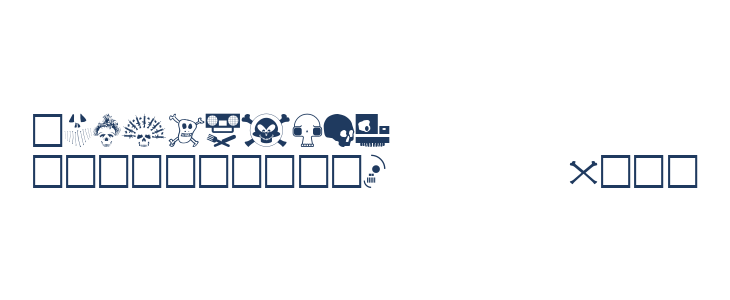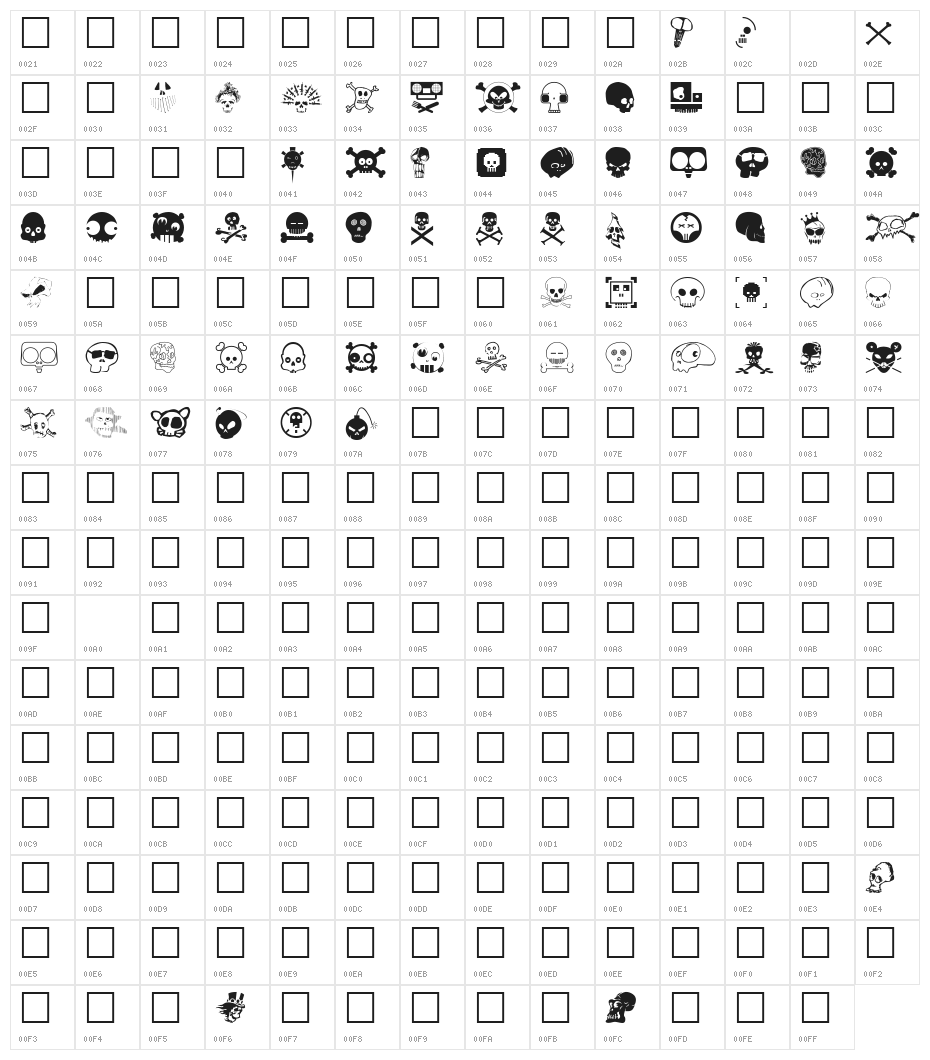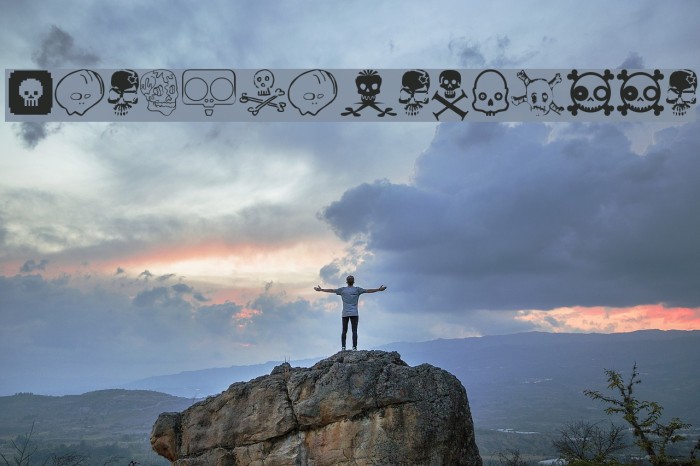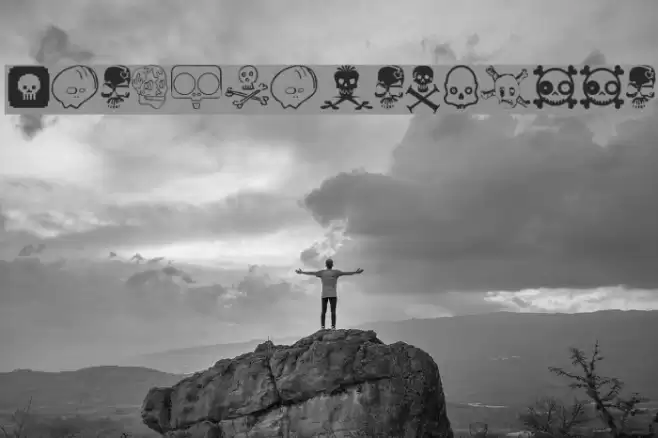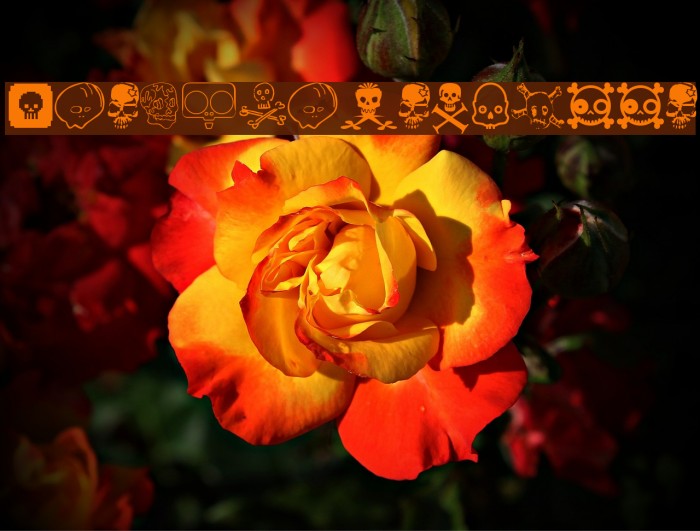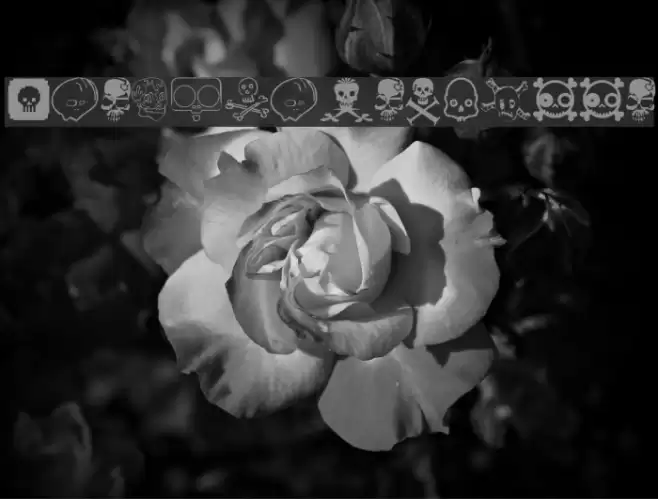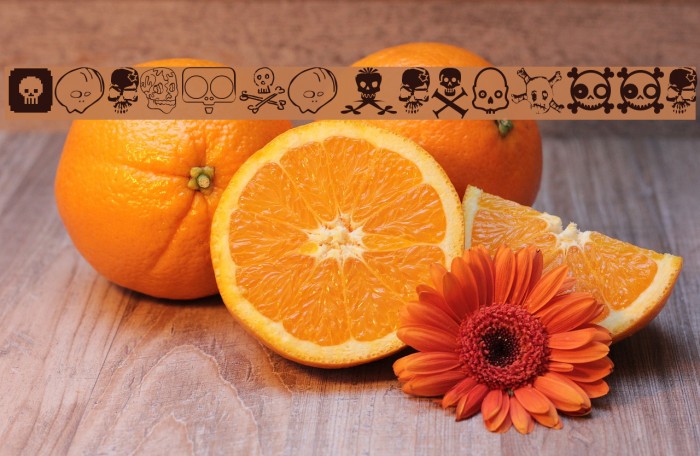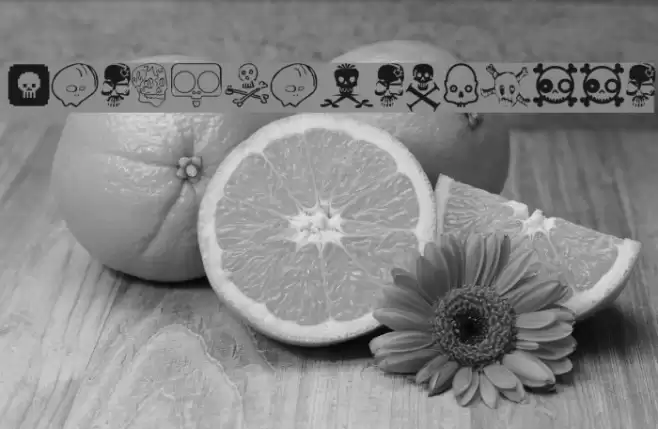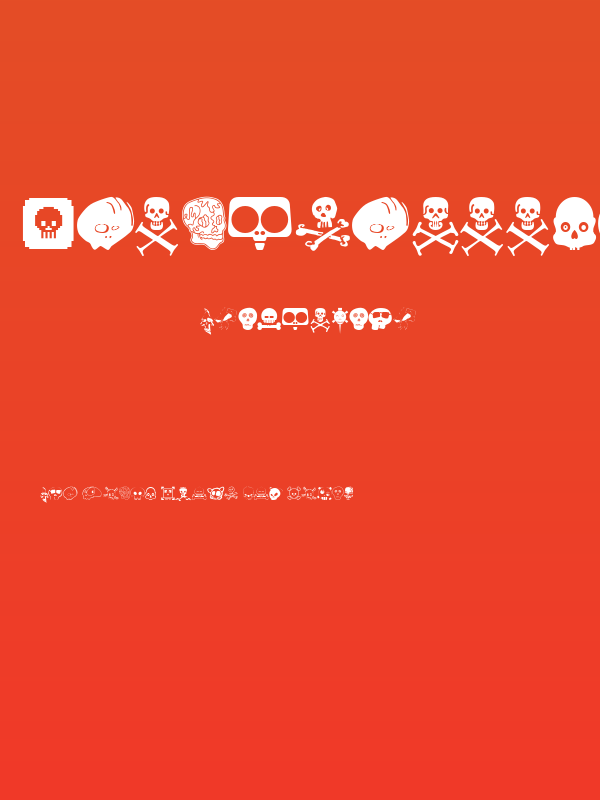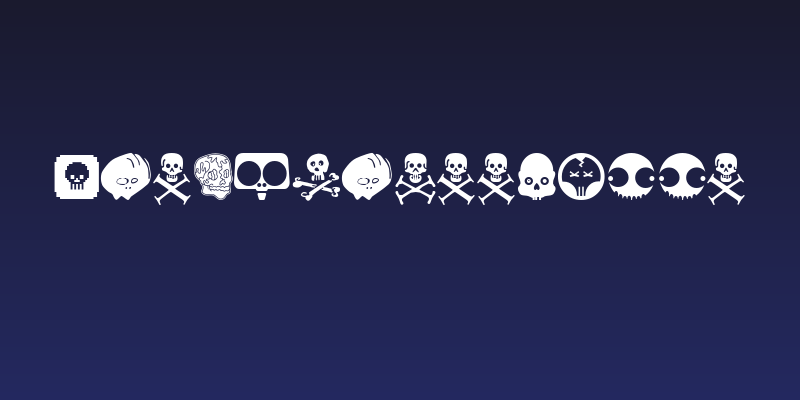
DesignersSkulls Font
DesignersSkulls Description
A decorative display font featuring a wide variety of stylized skull and crossbones illustrations, each glyph representing a unique skull design with playful, cartoonish, and edgy elements. The characters are bold, highly graphic, and visually distinct, making each symbol stand out individually.
| Overall Style | Decorative, Playful, Edgy |
| Use Case | Logos, Posters, Stickers, Themed Graphics |
| Proposed Projects | Halloween posters, party invitations, band merchandise, edgy branding, stickers, graphic tees, themed event materials. |